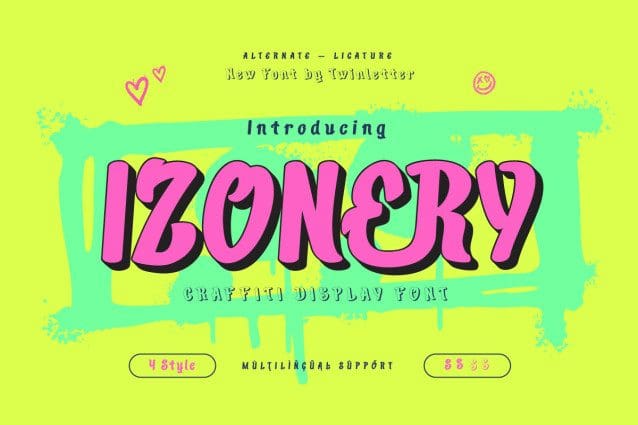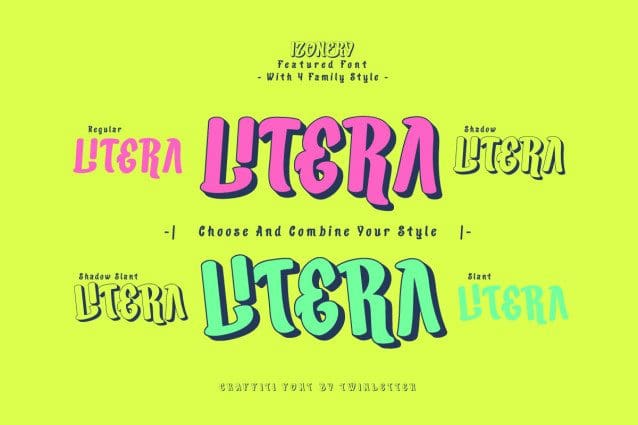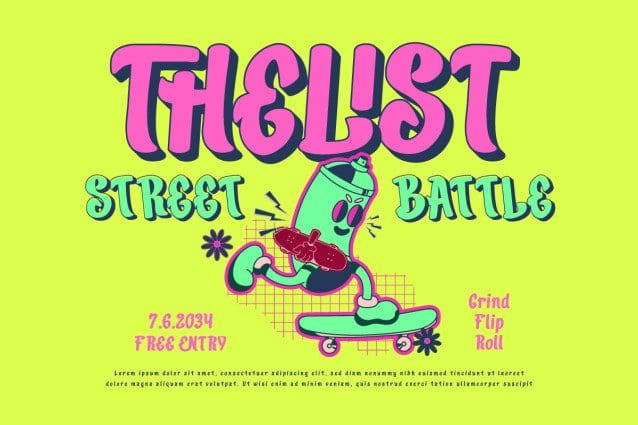
Izonery Graffiti Font
Izonery Graffiti Font is a stunning graffiti font that conveys bold character. Each character depicts freedom of expression and unlimited creative spirit. Suitable for urban projects, street art, or designs looking to showcase boldness and diversity, Izonery delivers visual power that impresses and inspires.